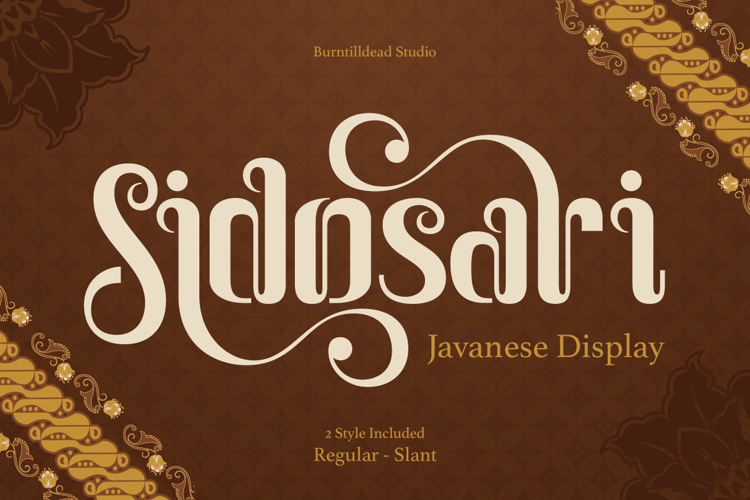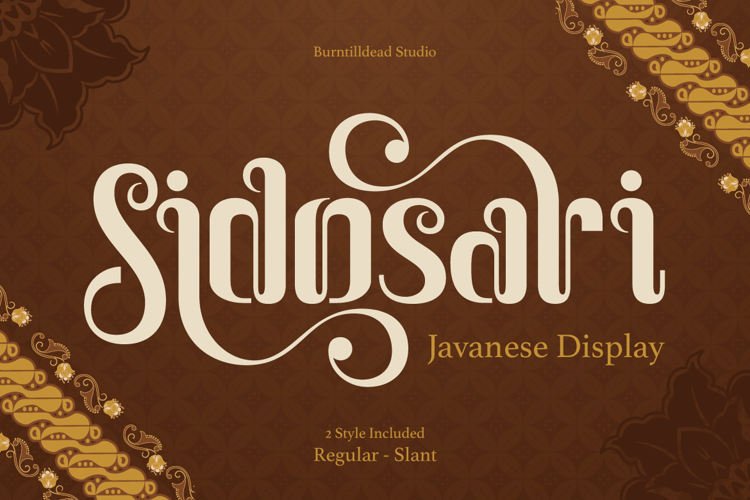
Sidosari is a bold Javanese-inspired display font featuring elegant swash details and decorative curves that bring a rich, traditional Indonesian character to any design. With its flowing ligatures and ornamental flourishes, Sidosari captures the timeless beauty of Javanese script culture while remaining fully legible and versatile for modern branding needs.
This font comes in 2 styles: Regular and Slant, giving you flexibility to mix and match for headers, logos, and decorative titles.